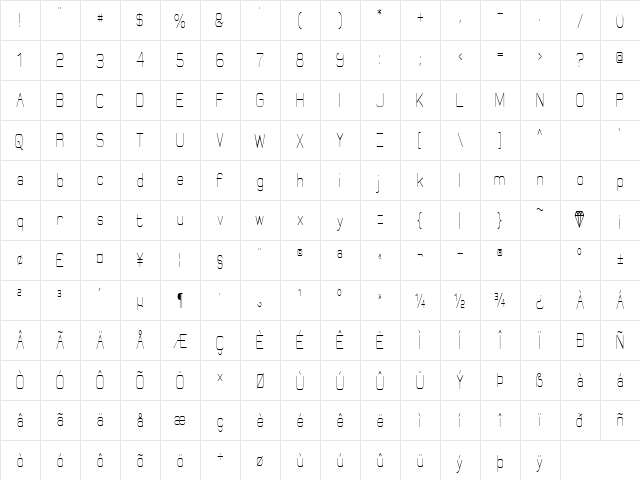
Elgethy Condensed Regular
Design Context for Elgethy Condensed Typeface
Elgethy Condensed offers clean, dependable letterforms without strong stylistic allegiance, making it a practical choice for designers who need flexibility. The condensed width makes it efficient for tight spaces without sacrificing legibility.
Pro Tip: Use Elgethy Condensed in both headline and body roles to test its range before committing to a single application.